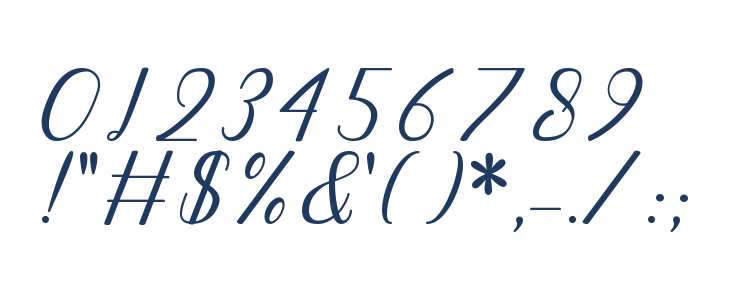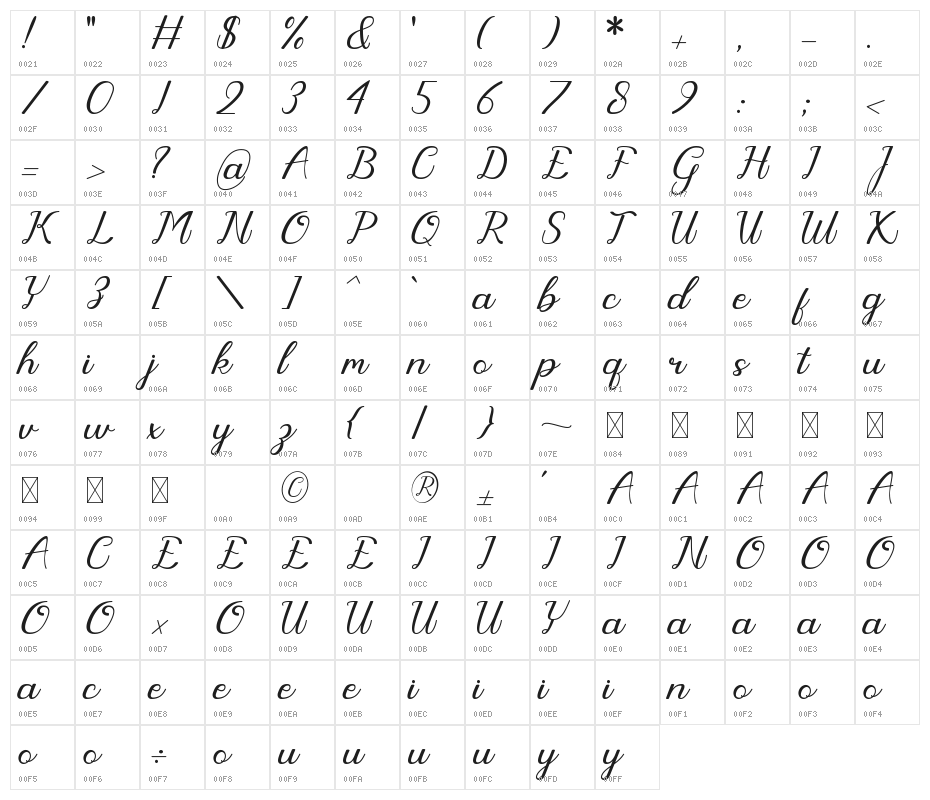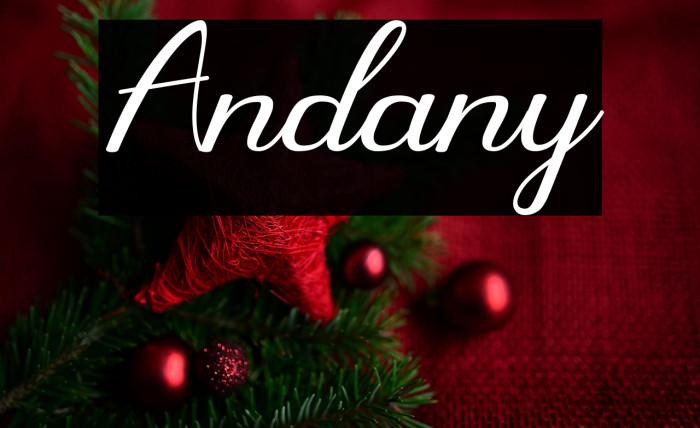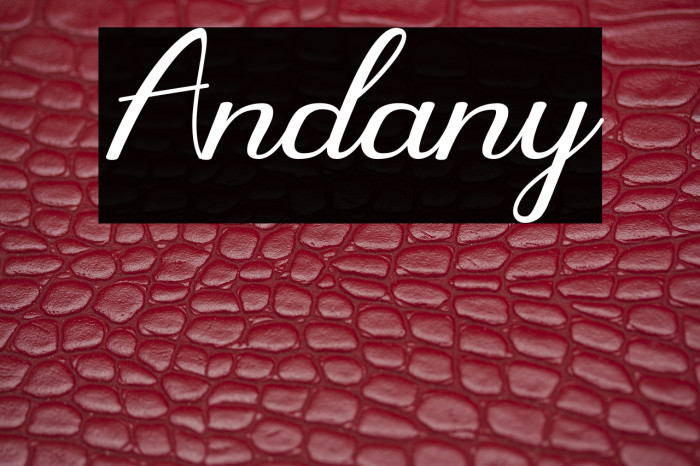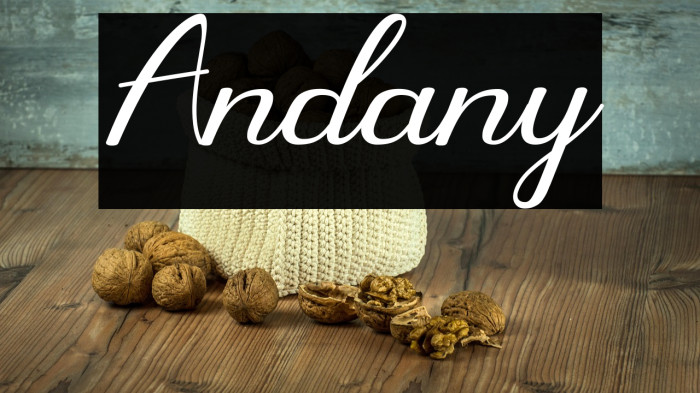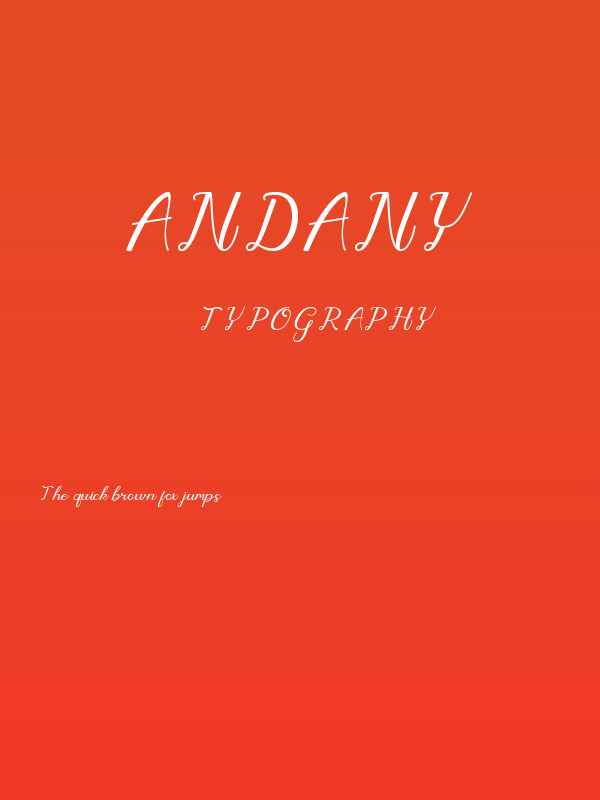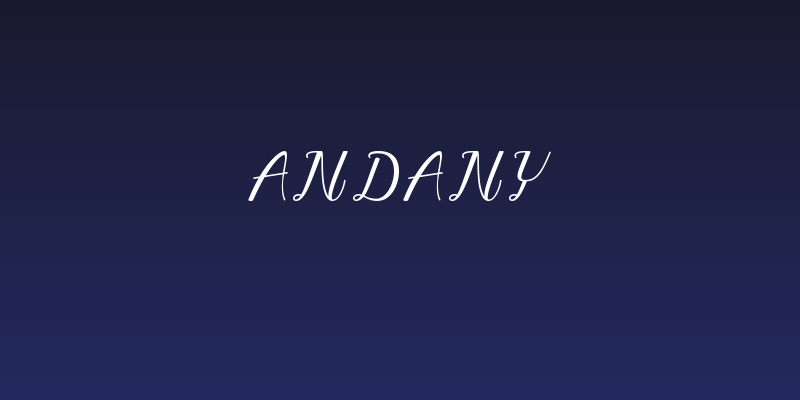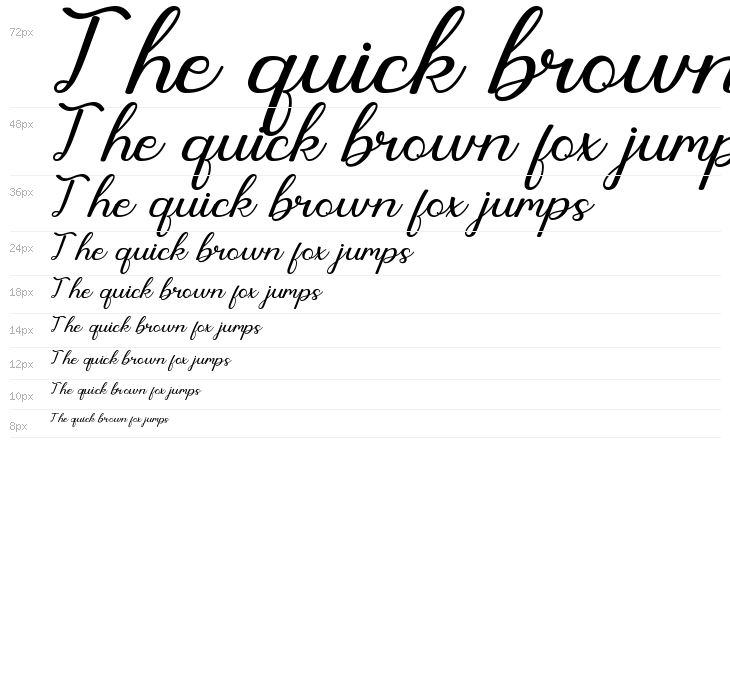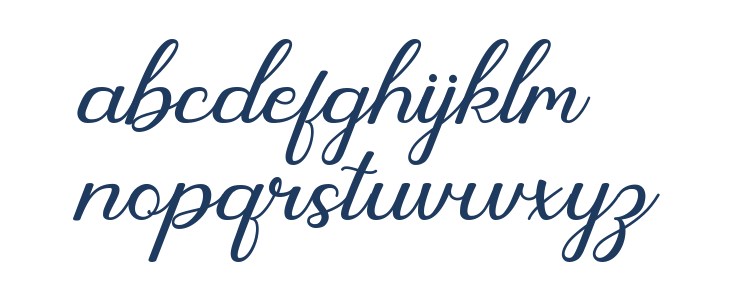
Andany Font
Andany Description
This elegant script font features a flowing, cursive style that exudes sophistication and grace. The uppercase letters are slightly more formal, with delicate loops and swashes that add a touch of flair. The lowercase letters maintain a consistent flow, with smooth connections between characters, making it ideal for creating seamless word formations. The numerals are clear and stylish, complementing the overall aesthetic. Special characters are thoughtfully designed, maintaining the font's cohesive look. This font is perfect for projects that require a personal, handwritten touch, such as invitations, greeting cards, or branding materials.
| Overall Style | Elegant |
| Use Case | Invitations, Branding, Stationery |
| Proposed Projects | Ideal for wedding invitations, elegant branding, personal stationery, and artistic projects. |